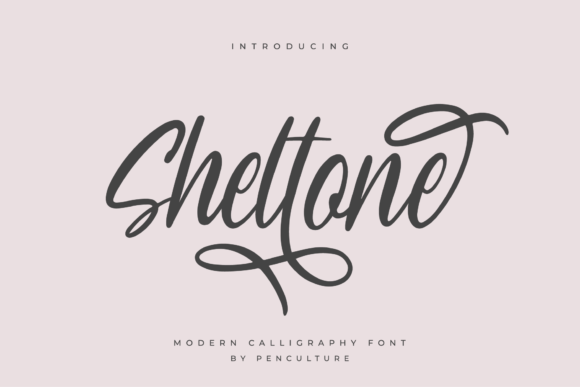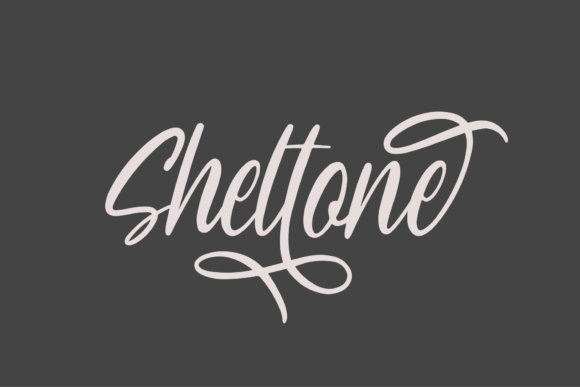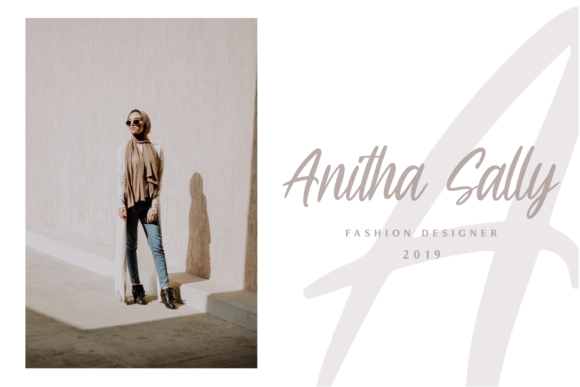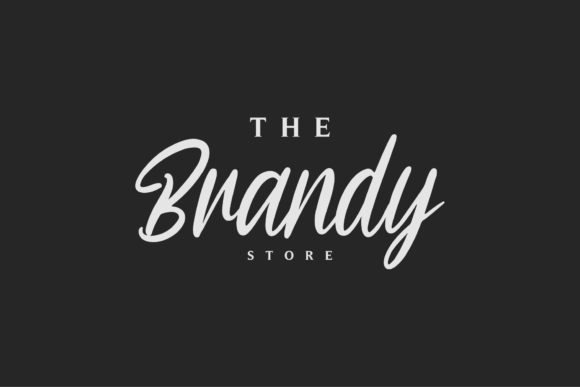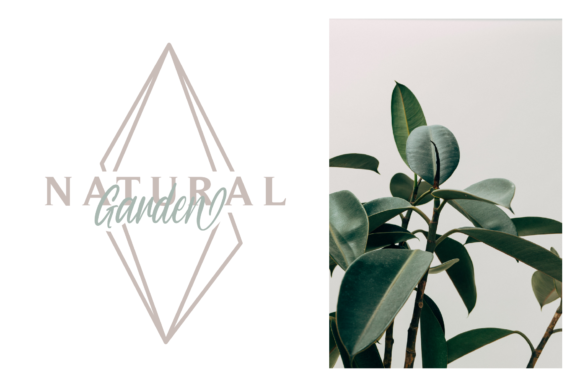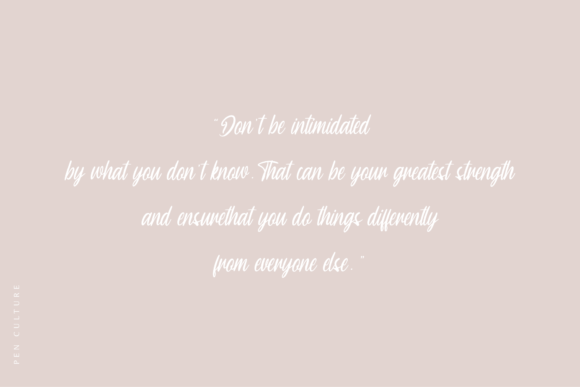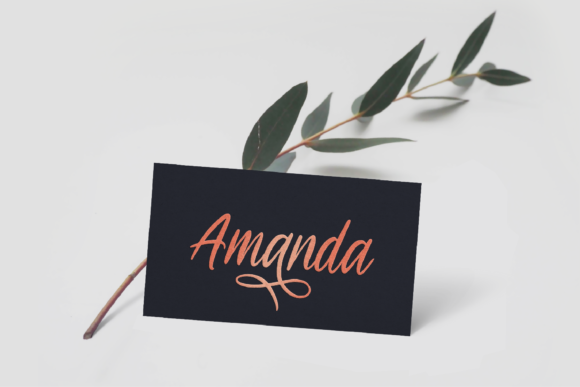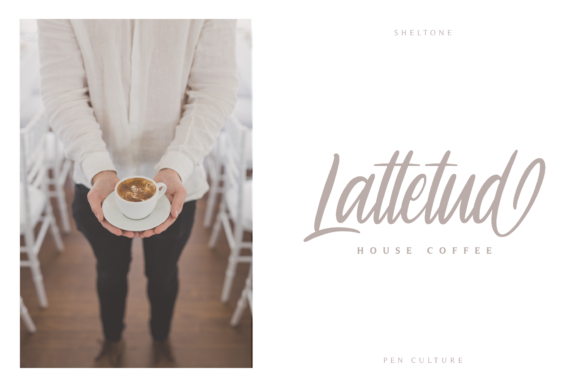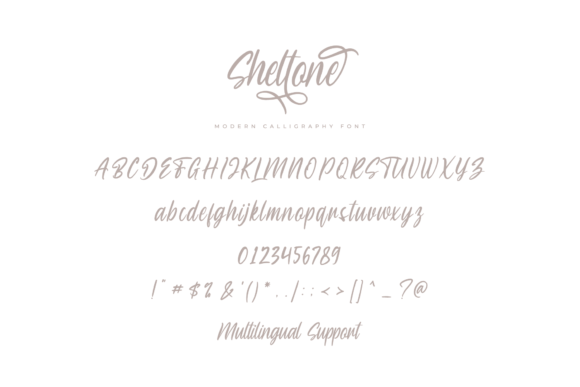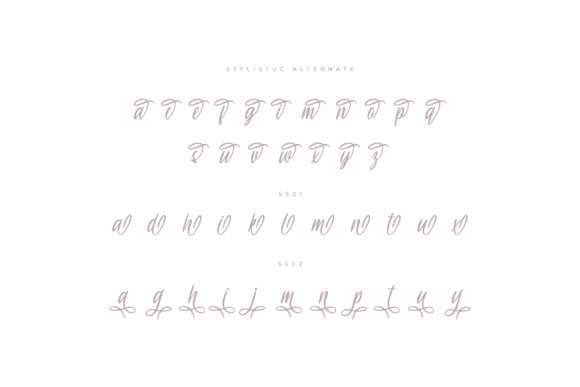
Sheltone Font
About Sheltone Font
Sheltone merges elegance and authenticity into one truly original script. Use it to turn any design idea into a true standout.